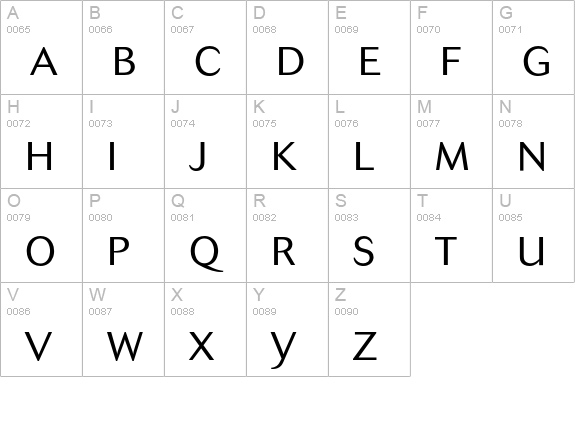
Cosmos BQ Light is a refined, elegant variant in the Cosmos typeface family \xE2\x80\x94 well suited to elegant body text, refined sub-headings, and luxury branding.
Cosmos BQ Light font is a modern and elegant typeface that exudes sophistication and style. Its clean lines and sleek curves make it perfect for a wide range of design projects, from branding to editorial work. This versatile font is ideal for creating a contemporary and professional look. What makes Cosmos BQ Light font even more appealing is that it is available for free download at FontsMarket.com. This means you can easily access this high-quality font without any cost, making it a valuable addition to your font collection. With its timeless design and effortless charm, Cosmos BQ Light font is sure to elevate your designs and leave a lasting impression on your audience.